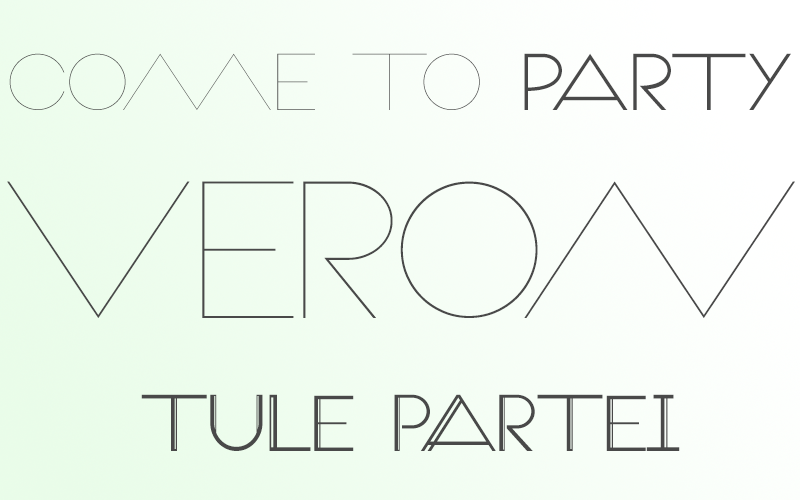
Font name: | Veron |
Author: | skomii |
The Veron font is perfect to write titles, names and make posters. The Normal and Bold heights have some alternate characters in the lowercase. The three fonts are kerned. This is the second and last update of the Veron font, I adjusted all glyphs metrics and heights because they were looking weird in some designs. Thanks for downloading it and if you are happy, like me on Facebook: https://www.facebook.com/Skomii.PauloR to know more about me and what I'm doing !!! |